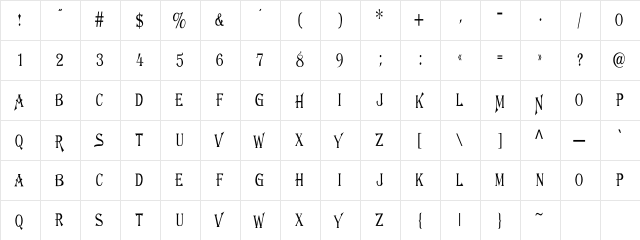
SpeakEasyThin Regular
Design Context for SpeakEasyThin
SpeakEasyThin is a composed and adaptable typeface that performs quietly and consistently across a wide range of design contexts. Its slender proportions lend an understated elegance to any composition.
Pro Tip: Use SpeakEasyThin in both headline and body roles to test its range before committing to a single application.